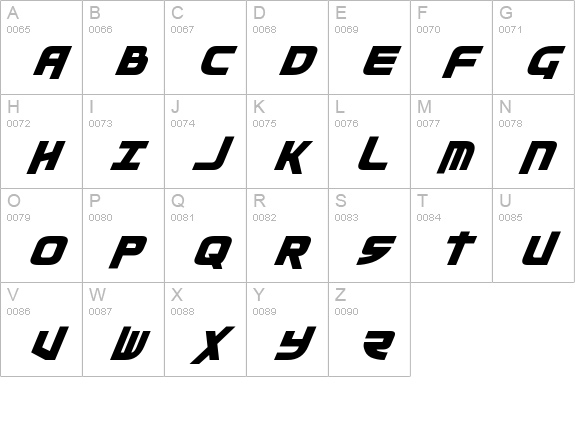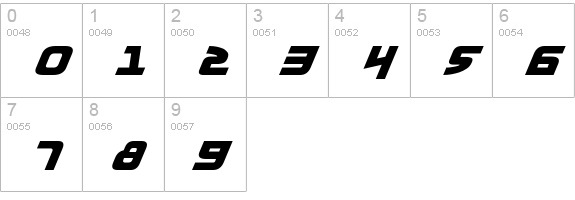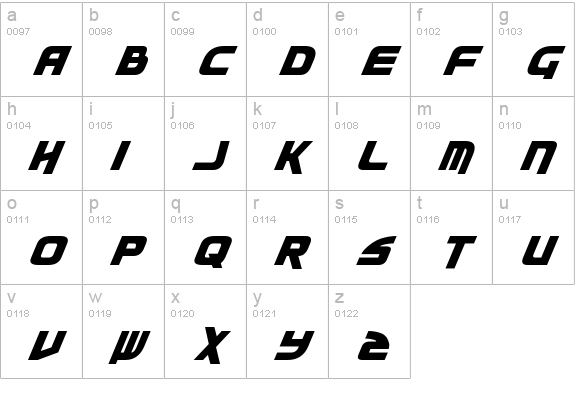
Moltors Italic Font Details
Moltors Italic is a distinctive, italic variant in the Moltors typeface family \xE2\x80\x94 well suited to design and typography projects.
Moltors Italic font is a stunning and elegant typeface that exudes sophistication and style. Its sleek and modern design is perfect for adding a touch of class to any project. The italicized letters have a graceful and flowing appearance that adds a unique flair to any text. What makes Moltors Italic font even more appealing is that it is completely free to download at FontsMarket.com. This means that you can easily access this beautiful typeface and use it in your designs without any cost. Whether you are working on a professional project or a personal endeavor, Moltors Italic font is a versatile choice that will elevate your work to the next level. With its timeless appeal and effortless charm, Moltors Italic font is sure to make a lasting impression on your audience. Download it for free today and start creating stunning designs that stand out from the rest.